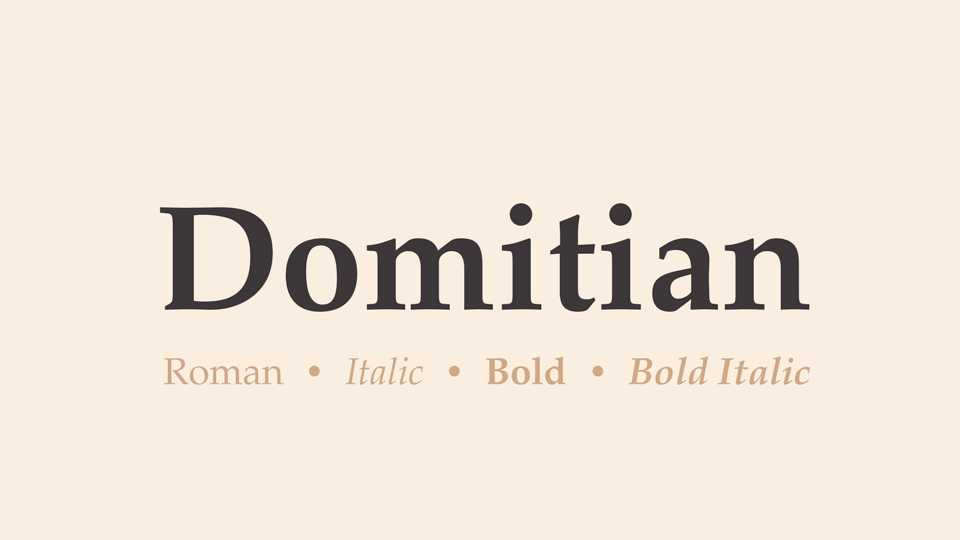
Download Domitian typeface, a serif font family in two weights and matched Italics, based on the Palatino design by Hermann Zapf, as implemented in Palladio of URW’s fonts.
Designer: Daniel Benjamin Miller